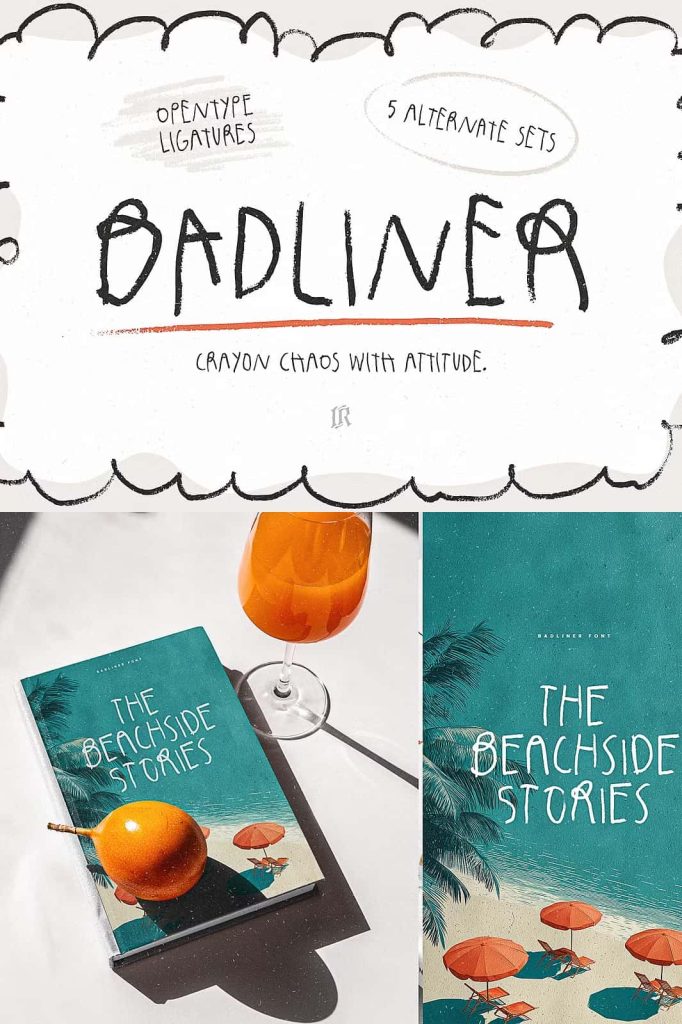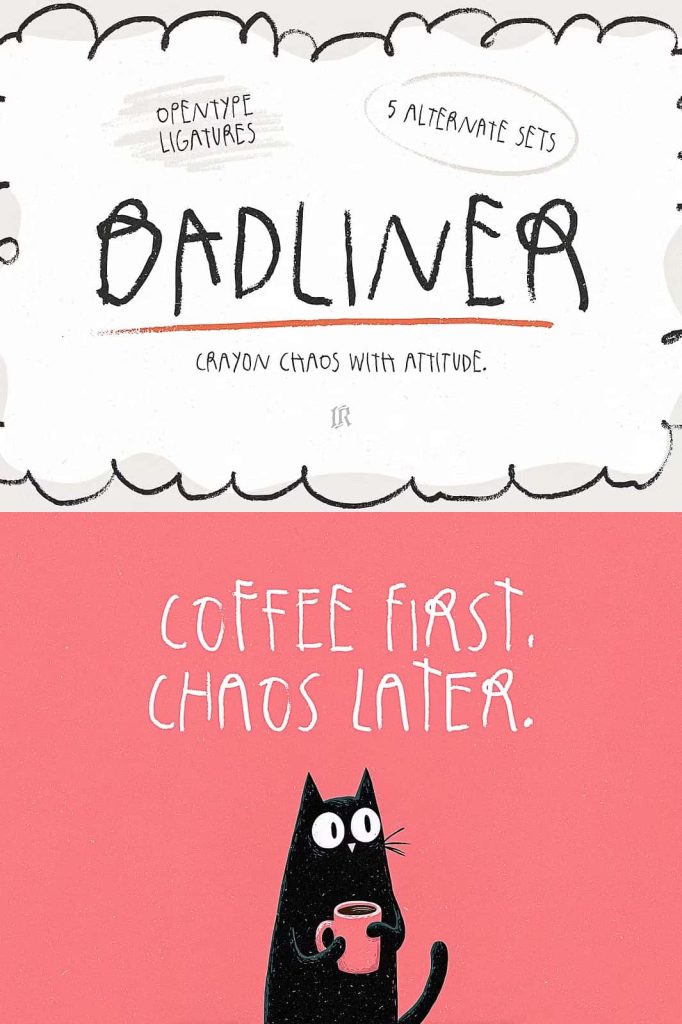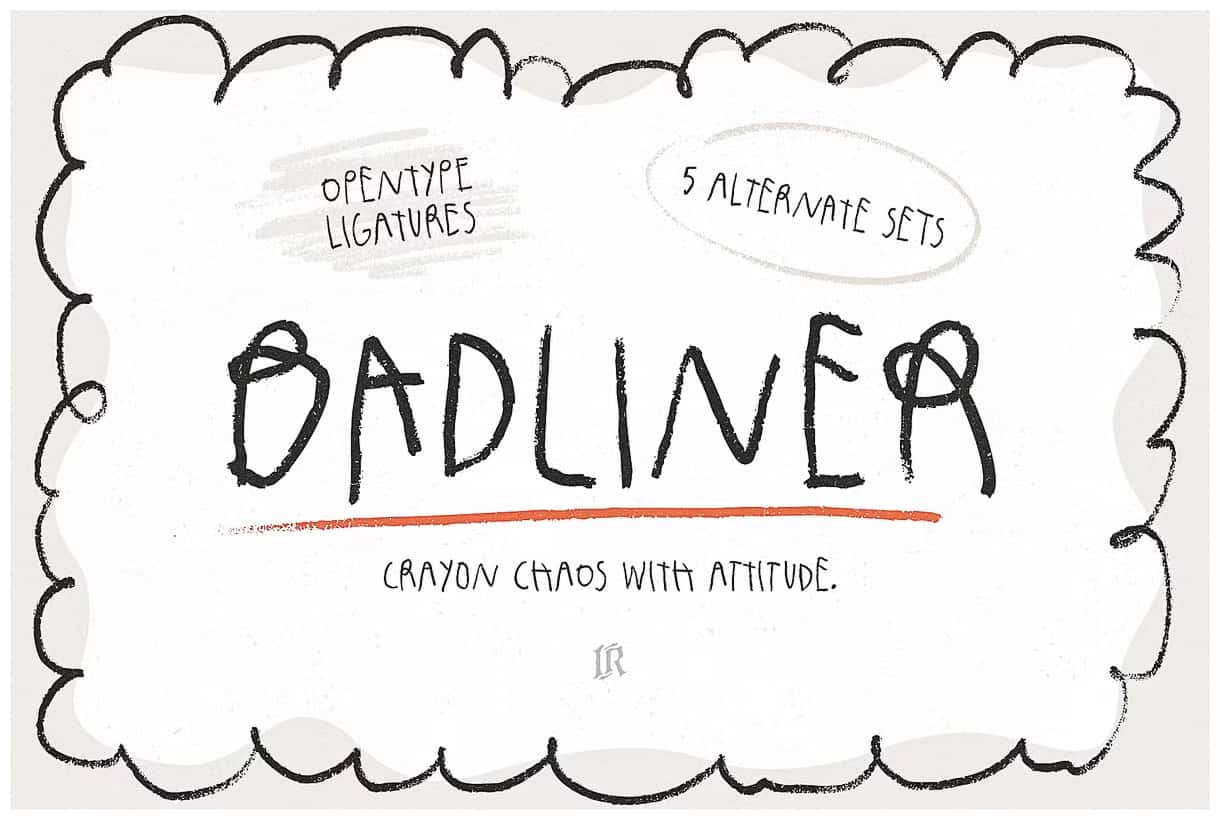
Badliner Crayon Font: Hand-Drawn Energy with Playful Character
Badliner Crayon Font captures the spirit of creativity and spontaneity in a beautifully hand-drawn typeface. Designed to bring a sense of fun and artistic flair to your projects, Badliner combines rough, crayon-like texture with impressive readability. This dynamic font offers the perfect balance between playful imperfection and practical usability, making it a go-to choice for designers who want to add warmth, authenticity, and handcrafted charm to their work.
Unleash the Energy of Hand-Drawn Typography
Badliner is not your ordinary font—it’s a bold creative statement. Its hand-drawn strokes mimic the look of real crayon drawings, giving each letter a raw, expressive texture that feels personal and alive. This makes the font perfect for projects that demand emotion and originality. Whether you’re designing a poster, product package, or digital campaign, Badliner instantly adds a unique and artistic touch that captures attention and sparks curiosity.
The font’s organic structure and slightly messy contours make it feel spontaneous, yet it retains excellent readability even at smaller sizes. That rare combination of character and clarity allows designers to use Badliner confidently across multiple applications, from bold headlines to playful text blocks.
Perfect Balance Between Chaos and Control
What makes Badliner Crayon Font stand out is its ability to blend chaotic charm with structured design. Each letter has been crafted to look natural and imperfect—yet it fits beautifully within modern layouts. The crayon-inspired strokes evoke nostalgia, creativity, and childhood wonder, while the consistent proportions ensure professional results. This makes Badliner an exceptional choice for both artistic projects and commercial designs seeking a human touch.
Ideal for a Variety of Creative Uses
Badliner’s versatility allows it to shine across a wide range of design purposes. Whether you’re crafting eye-catching posters, brand packaging, merchandise graphics, or social media visuals, this font infuses every composition with bold character. It’s especially effective for projects that aim to express creativity, energy, or authenticity. Designers love using it for:
- Quotes and headlines that stand out with personality.
- Posters and flyers that demand visual impact.
- Children’s book titles or playful editorial layouts.
- Packaging designs that emphasize handmade, artisanal aesthetics.
- Social media content where individuality and creativity matter.
Because of its unique crayon texture and high readability, Badliner can also work for longer text blocks that need an approachable, casual feel. It’s ideal for creative brands that value storytelling, emotion, and authenticity in their visual identity.
Typography That Speaks Personality
Badliner’s hand-drawn design injects life into every project. Its irregular shapes and bold texture create a sense of movement and energy that digital perfection often lacks. This organic quality gives your text a more human tone, helping it connect with audiences on an emotional level. Whether used in print design or digital platforms, Badliner exudes charm and originality that makes every word feel more alive.
Designed for Modern Designers and Creators
Badliner Crayon Font was built with designers in mind — those who want to push creative boundaries while maintaining professional quality. The font supports multiple languages and is compatible with major design software, ensuring smooth workflow integration. Its handcrafted look pairs beautifully with minimalist layouts, textured backgrounds, or colorful illustrations, making it easy to adapt to any creative direction.
When paired with clean sans-serif or modern script fonts, Badliner adds just the right amount of edge and contrast to your typography compositions. It thrives in projects where bold expression and emotional connection are key elements of the design strategy.
Key Features of Badliner Crayon Font
- Authentic hand-drawn crayon texture for organic charm.
- Excellent readability, even in bold and playful layouts.
- Versatile design for posters, packaging, and digital media.
- Unique character that balances fun and functionality.
- Multilingual support for global design projects.
Bring Creative Energy to Every Design
Badliner Crayon Font is more than just a typeface—it’s a creative experience. It invites designers to embrace imperfection, celebrate personality, and communicate with authenticity. Whether you’re working on a vibrant branding campaign, an eye-catching poster, or a handmade-inspired product design, Badliner brings your ideas to life with bold texture and emotional depth.